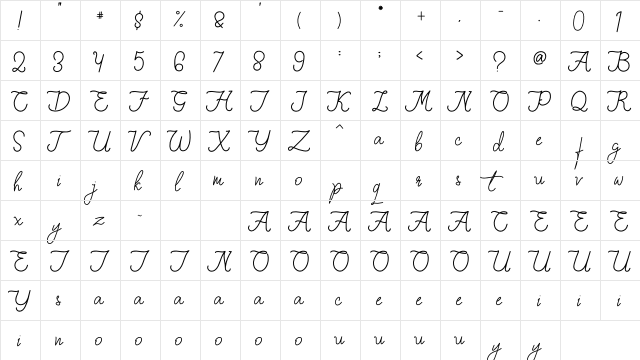
Fiona Lattina Regular
| Foundry | Kotak Kuning Studio |
| Designer | Arif Dwi |
Design Context for Fiona Lattina Typeface
Fiona Lattina takes a measured approach to typography — its balanced proportions and neutral character make it a reliable workhorse for both digital and print work.